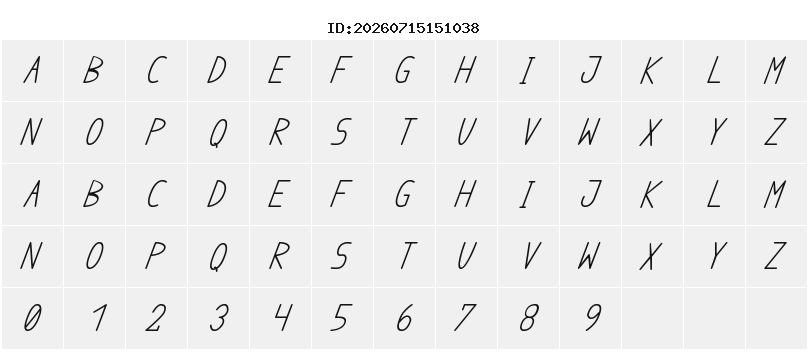
anome ibul bold cursive Preview
• Font Name: anome ibul bold cursive
• Full Font Name: anome ibul bold cursive
• Designer: kaiser zhar khan
About anome ibul bold cursive.ttf
anome ibul bold cursive.ttf is a modern, elegant sans-serif font designed for ultimate readability and visual harmony. Perfect for branding, headlines, web design, and print materials.